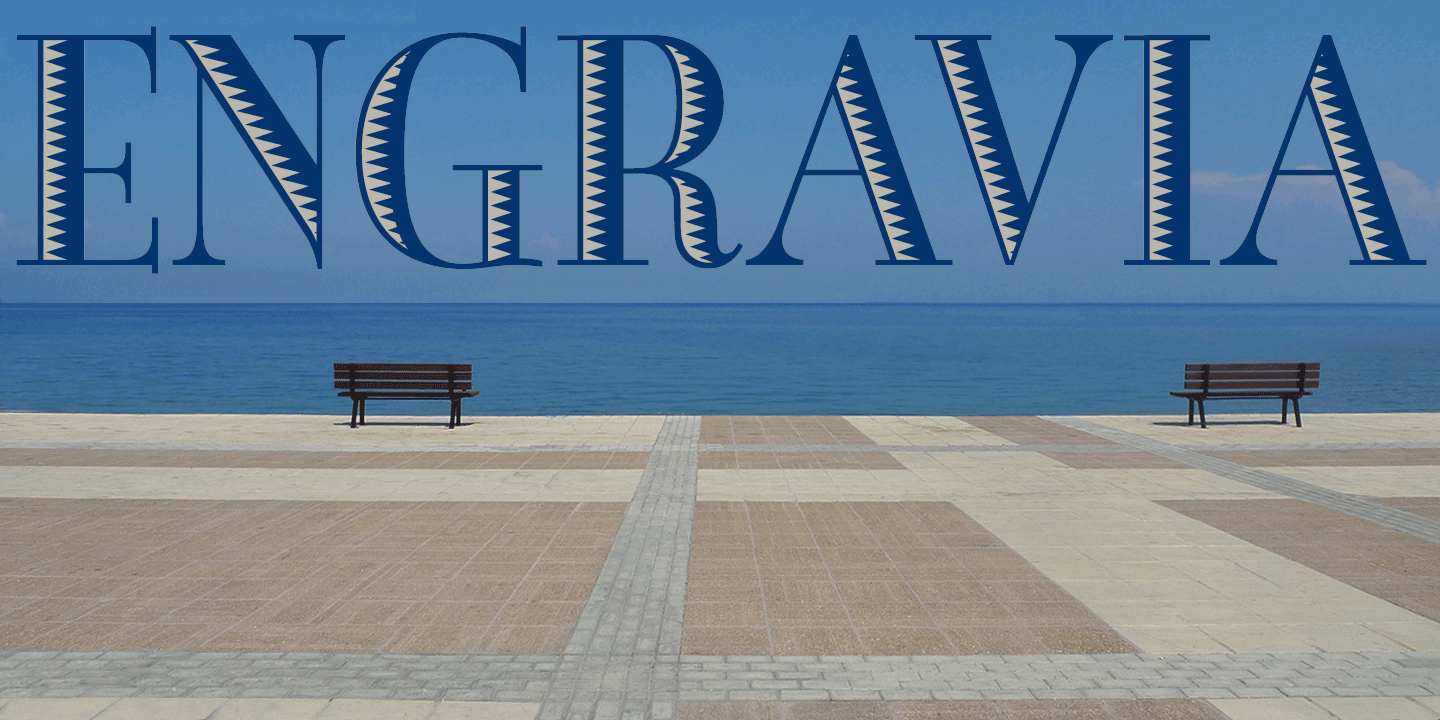
The Engravia Font excels in various design applications including luxury engraving service branding, elegant monumental inscription designs, prestigious award certificate layouts, refined memorial plaque communications, classic trophy engraving materials, distinguished honor roll signage, formal dedication stone inscriptions, sophisticated nameplate identities, elegant commemorative materials, and distinguished engraving projects that demand engraved elegance and inscriptional sophistication.
What makes the Engravia Font exciting is its masterful embodiment of classical engraving artistry and monumental inscription traditions through letterforms that capture the essence of carved stone lettering and the timeless dignity of engraved commemorative work. This typeface demonstrates exceptional permanence through carefully crafted characters that suggest the precise cuts of skilled engravers, the enduring beauty of carved inscriptions, and the solemn dignity that makes engraved lettering so profoundly meaningful and eternally respectful. The font's engraved personality makes it perfect for memorial services and luxury engraving companies seeking to communicate artistic craftsmanship, permanent dignity, and the kind of classical elegance that creates lasting commemorative experiences through typography that literally embodies the eternal nature of engraved stone.
The Engravia Font family typically includes dignified weight variations that enhance the engraved aesthetic, featuring classical proportions and extended character sets optimized for memorial communications and engraving applications. These family options often include inscription alternates, commemorative symbols, and classical decorative elements that provide designers with comprehensive tools for creating authentically engraved typography that celebrates memorial artistry while maintaining contemporary design appeal and engraving credibility.
Memorial professionals and luxury engraving artisans consistently select Engravia Font Free Download for projects requiring typography that communicates engraving authenticity and commemorative dignity. This typeface delivers exceptional performance in memorial marketing, engraving branding, and commemorative communications where establishing permanence and demonstrating respect for classical traditions is essential for meaningful remembrance. The font's carved character makes it particularly effective for monument and award applications. Download Engravia Font Free Download today to access this dignified typeface that transforms engraving communications with its carved elegance and inscriptional sophistication, creating compelling memorial experiences that honor the magnificent artistry of classical engraving while celebrating the eternal dignity that defines authentic commemorative craftsmanship and memorial excellence.